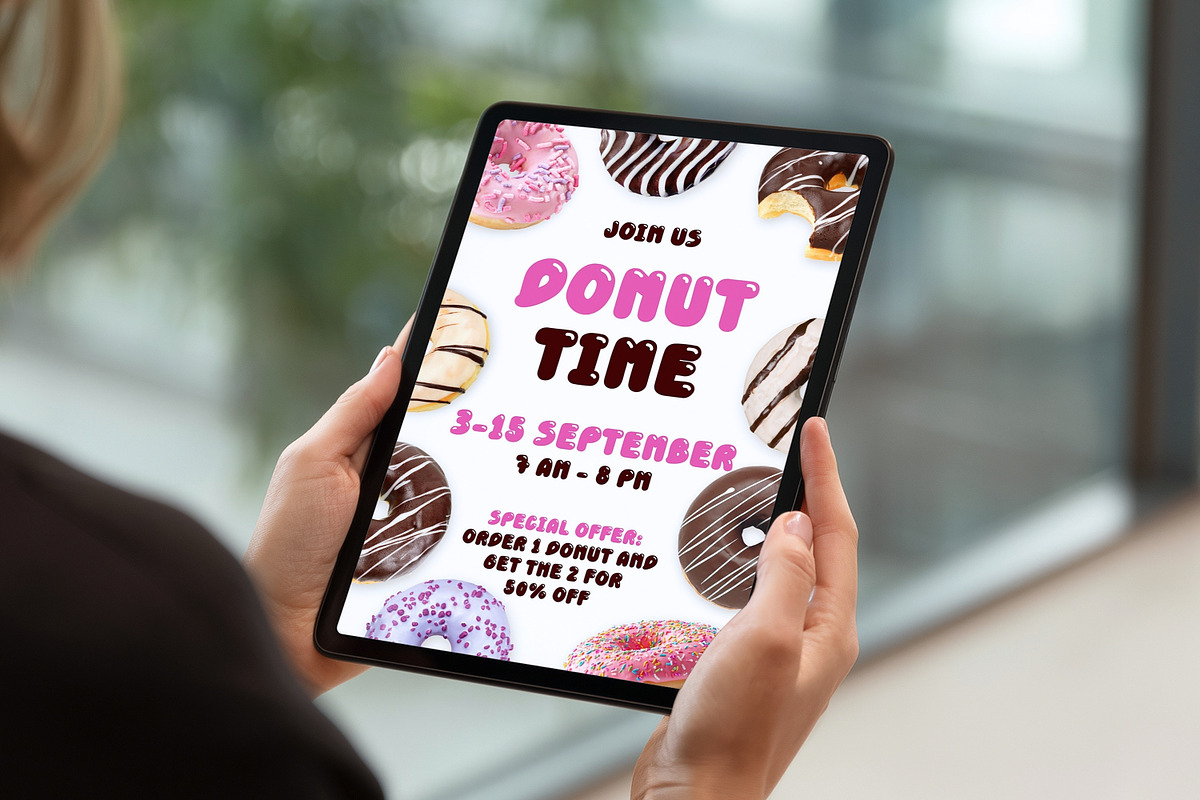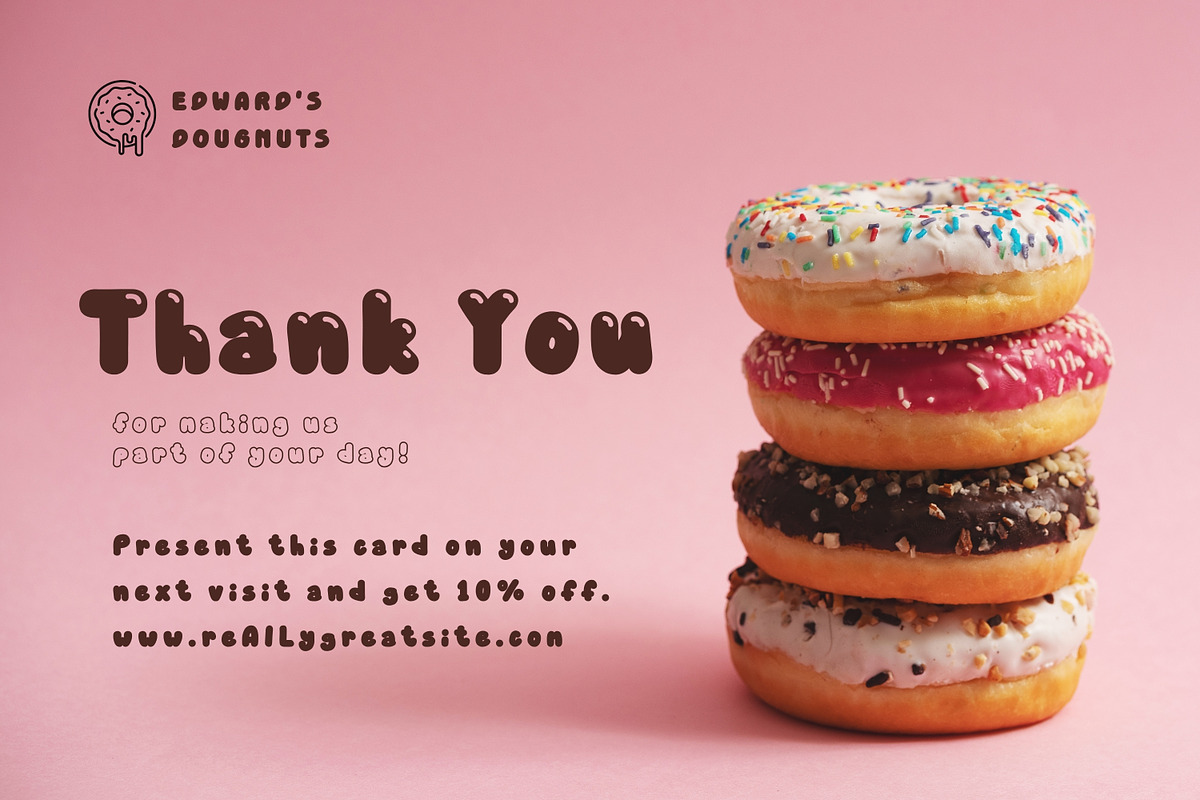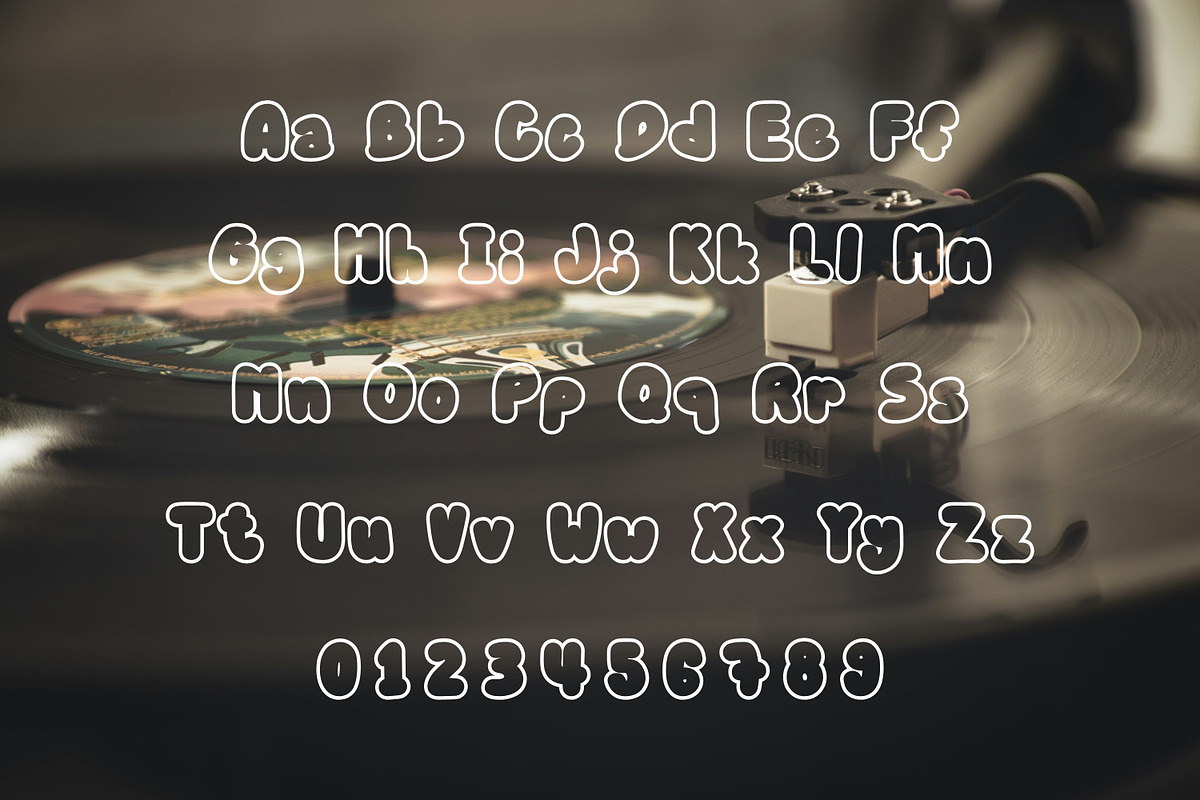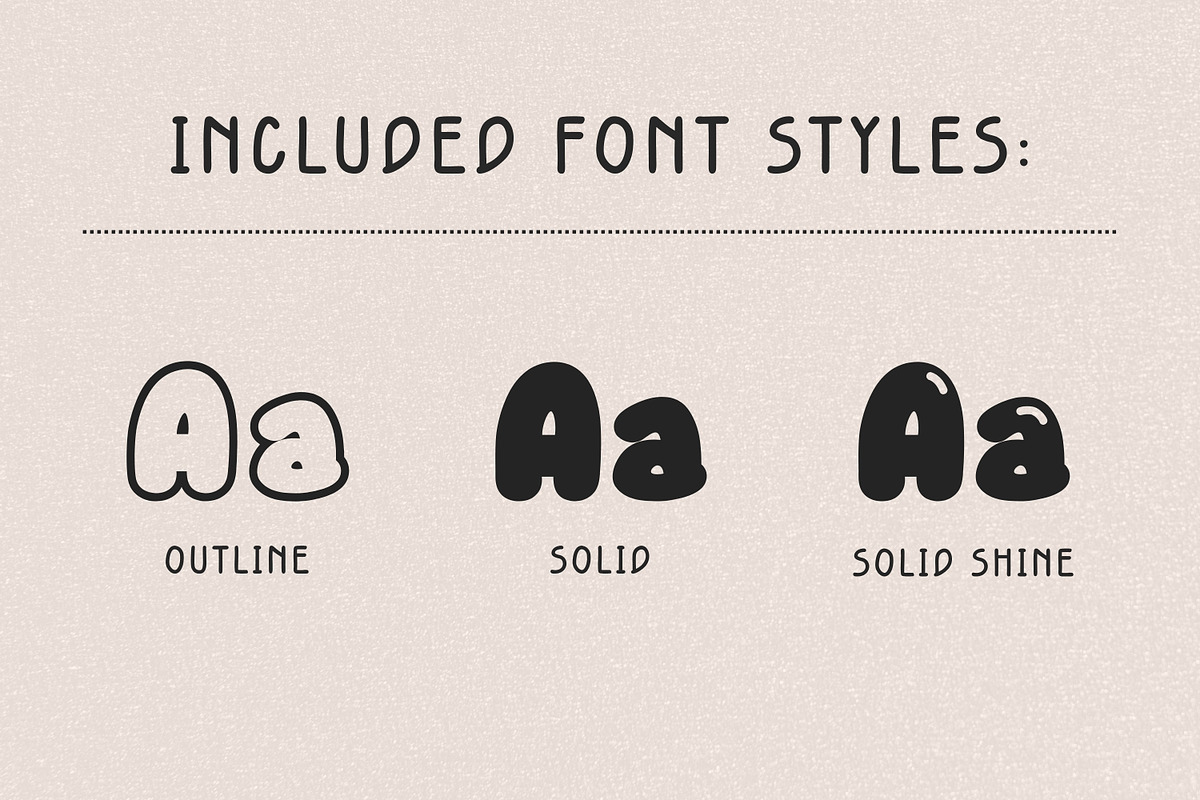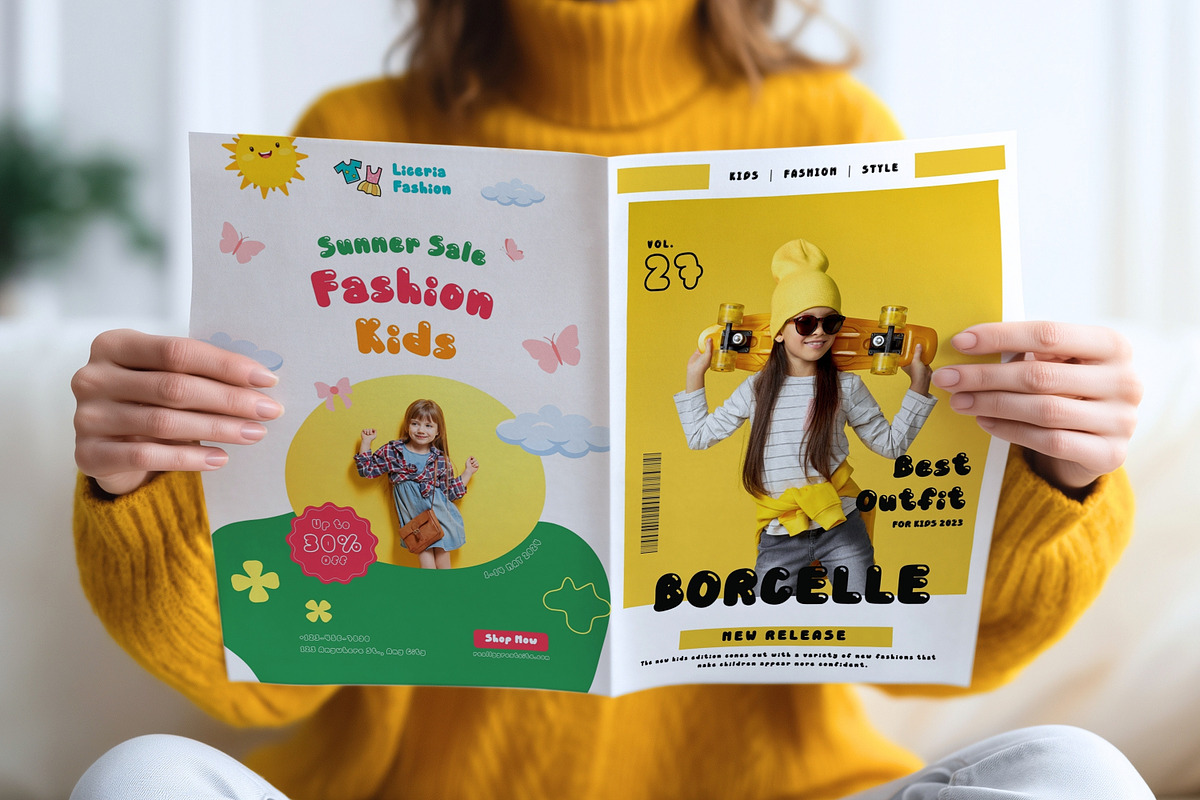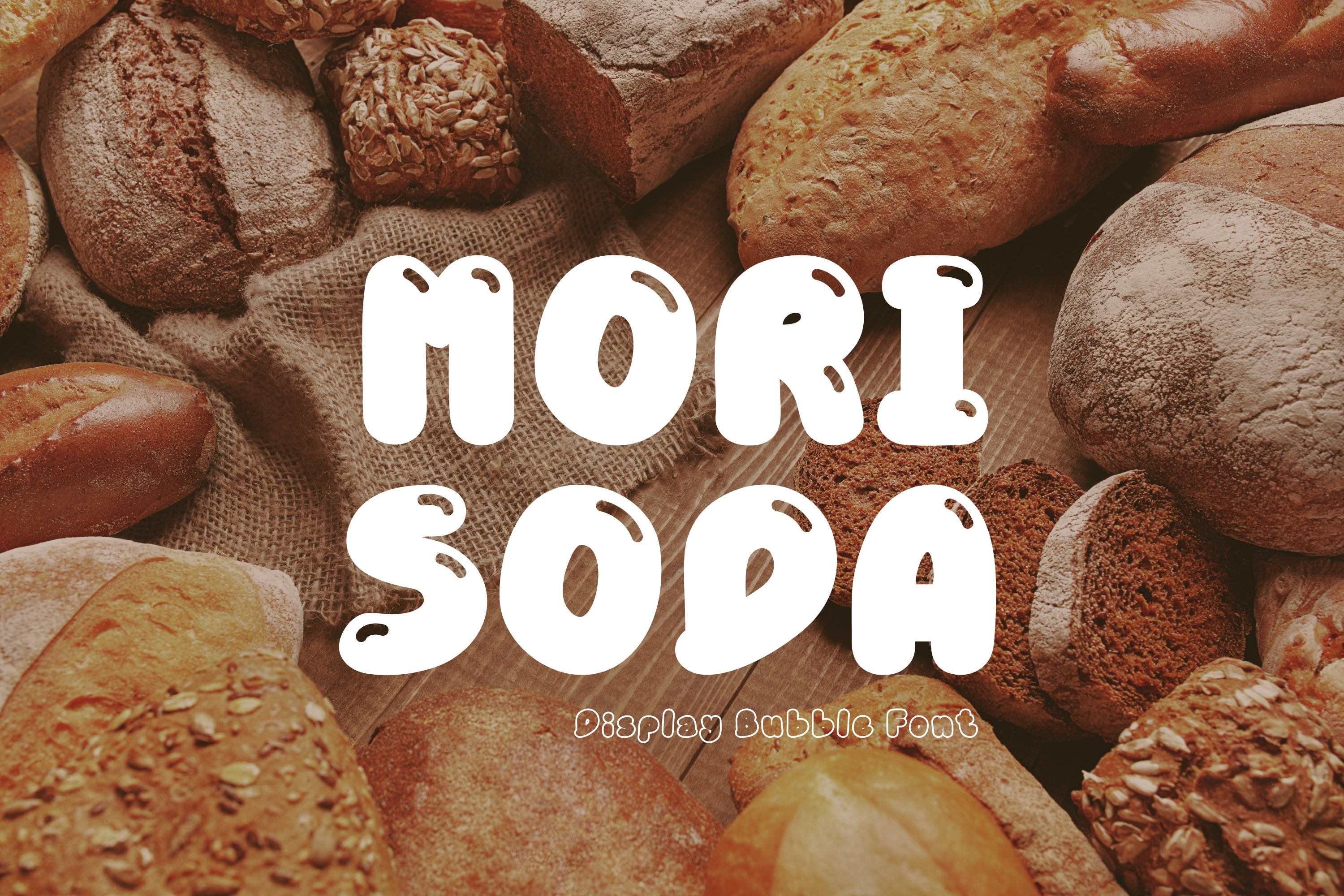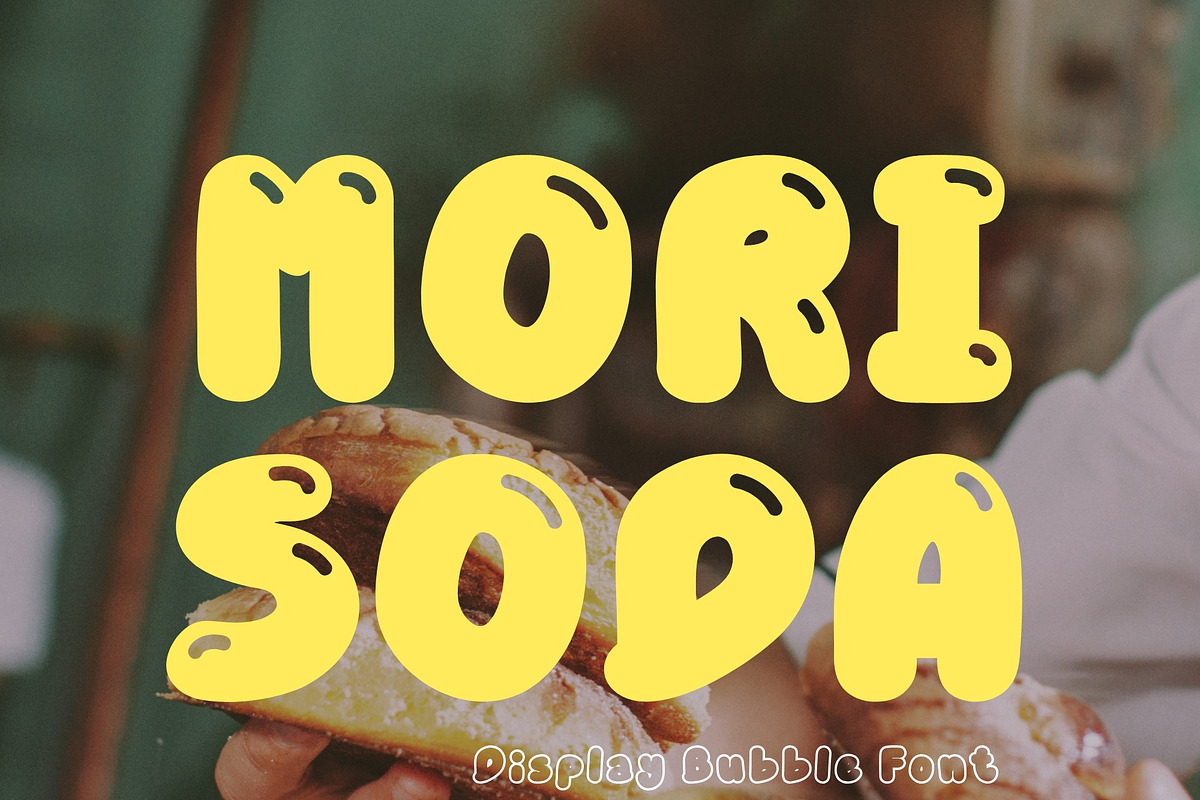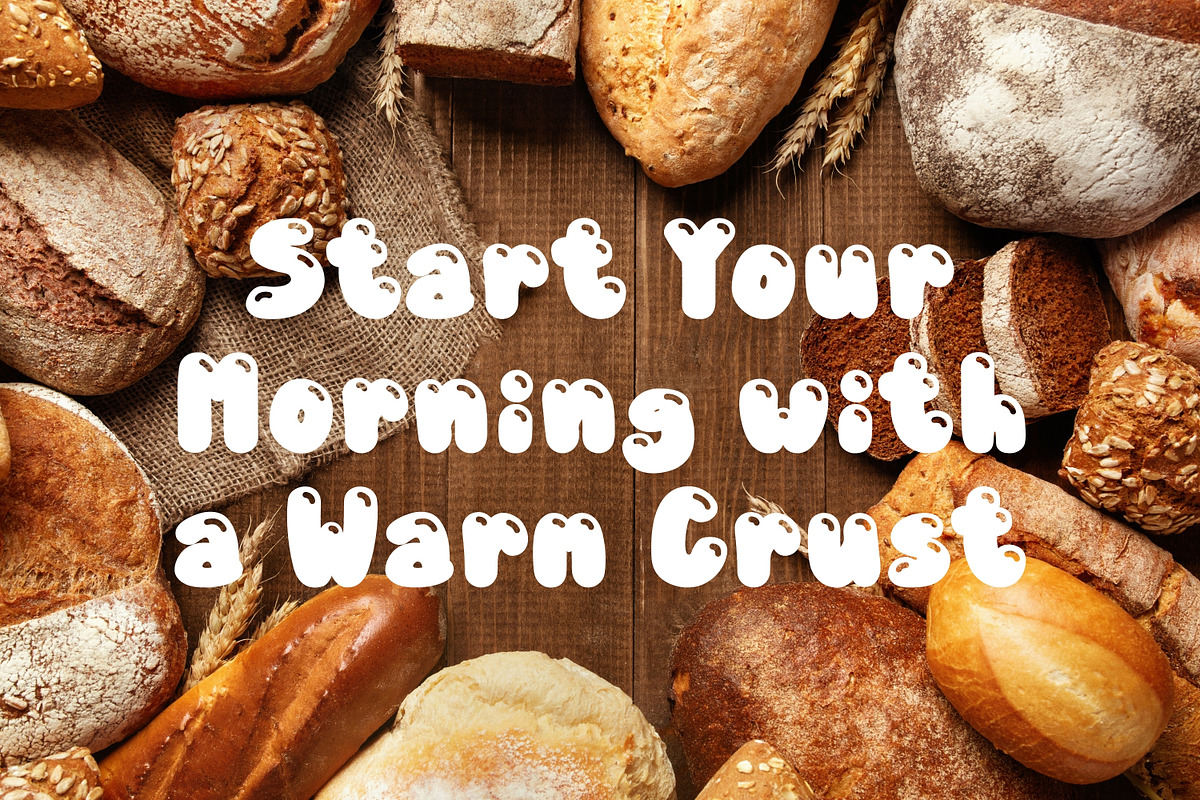
Retro Bubble Display Font- Mori Soda
✨ Mori Soda Bubble Font – Playful & Cute Display Typeface
Add a fun and adorable touch to your creative projects with Mori Soda, a bubbly display font designed for cute branding, stickers, packaging, social media graphics, Cricut projects, invitations, and more.This playful typeface features soft rounded edges and charming bubble-style lettering that instantly creates a cheerful and eye-catching look.